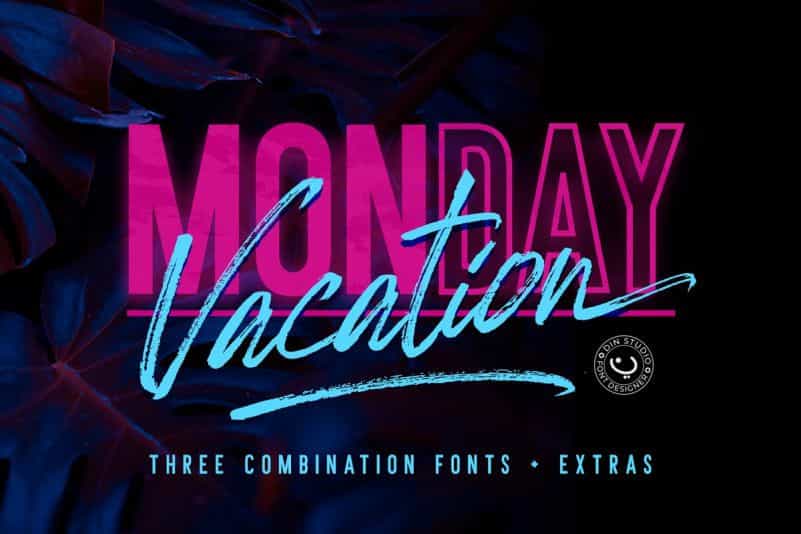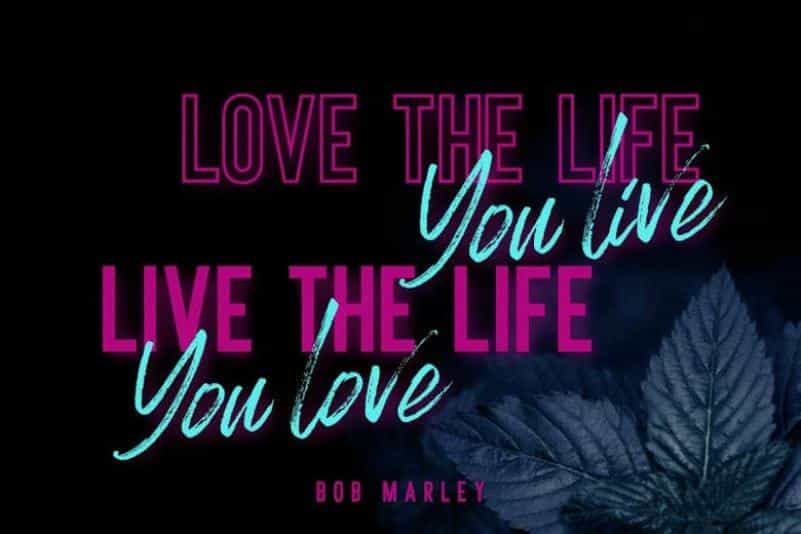
This is a modern pair of fonts, a sans serif one and a script one, created and shared by Din Studio. Introducing Monday Vacation. Monday Vacation is a brush font and is combined with the sans font (Solid +outline). Made with naturally brush.